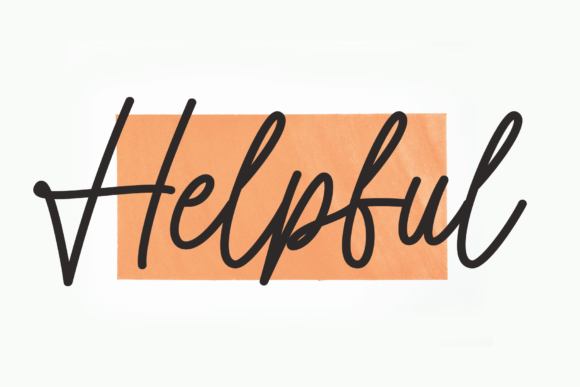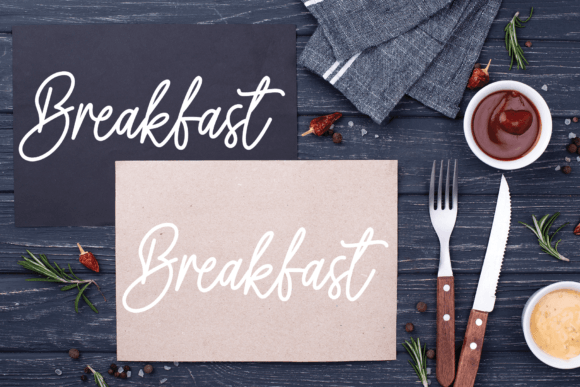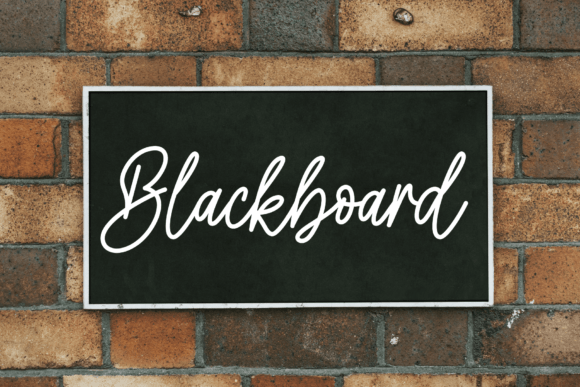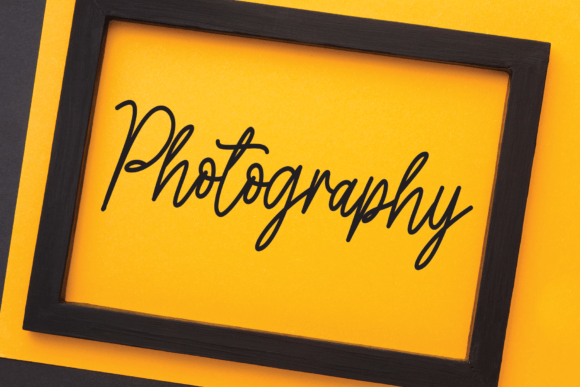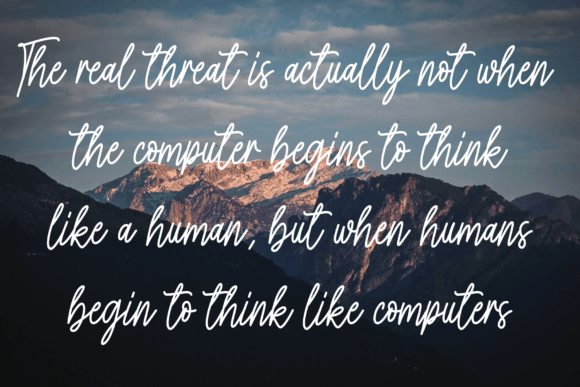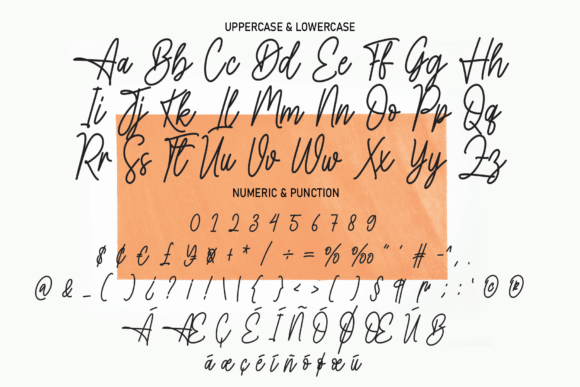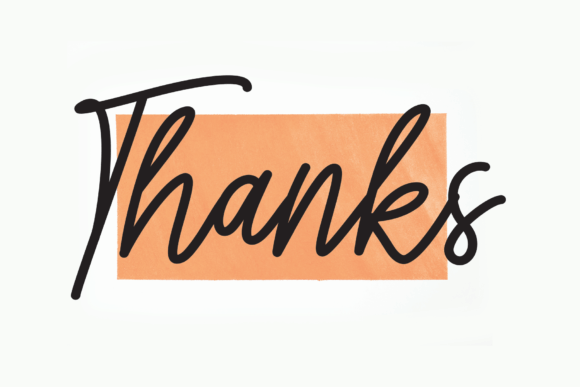
Helpful Font
About Helpful Font
“Helpful” is a font that embodies romance and sweetness, designed in a calligraphic style where characters gracefully dance along the baseline. Its charm lies in its casual yet elegant touch, making it a perfect choice for projects that aim to convey a sense of romance, warmth, and sophistication.
**Romantic Calligraphy**: “Helpful” captures the essence of romance with its delicate and flowing characters. The way the letters dance along the baseline adds a romantic flair, making it an ideal choice for wedding invitations, love letters, or any design that seeks to evoke feelings of love and affection.
**Sweet and Casual Elegance**: The font strikes a balance between sweetness and casual elegance. Its soft curves and fluid lines create a harmonious flow, making it visually pleasing and delightful to the eye. The casual touch adds an approachable and friendly feel, making it suitable for a variety of design applications.
**Versatile and Warm**: “Helpful” is versatile and warm, adapting effortlessly to different contexts. Whether used for greeting cards, romantic quotes, or special announcements, the font infuses sweetness and grace into the text. Its ability to convey warmth and tenderness makes it an excellent choice for expressing heartfelt sentiments in various creative projects.
**Timeless Appeal**: The timeless appeal of “Helpful” makes it a valuable asset for designers. Its classic calligraphic style and romantic charm ensure that it remains relevant and captivating across different eras and design trends. The font’s ability to evoke emotions and create a sense of intimacy makes it a cherished choice for romantic and heartfelt designs.
In summary, “Helpful” is more than just a typeface; it’s a romantic storyteller. Its dancing characters and casual elegance create a unique atmosphere of love and sweetness. Whether used in wedding materials, love notes, or any creative endeavor, “Helpful” effortlessly conveys emotions, leaving a lasting impression on those who experience it. Let “Helpful” be the elegant narrator that adds a delightful and romantic touch to each of your designs.